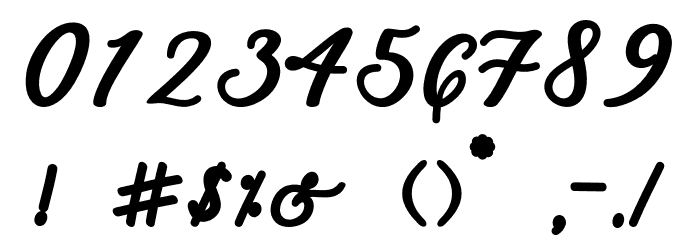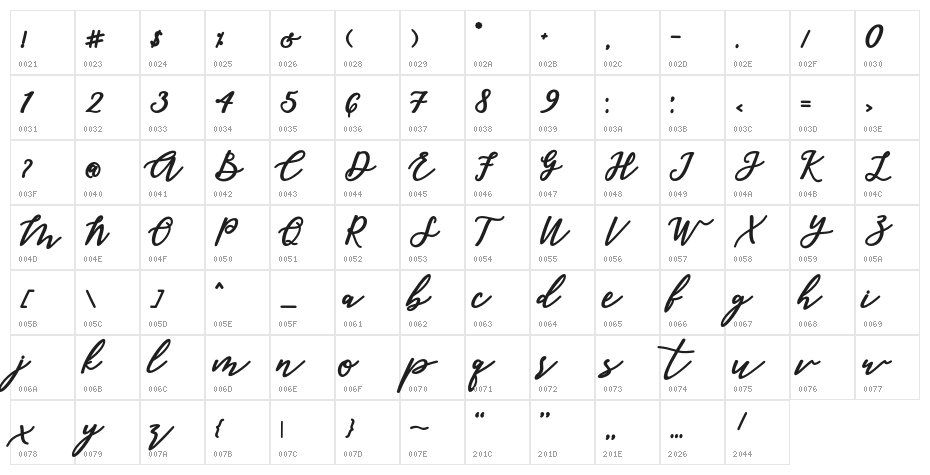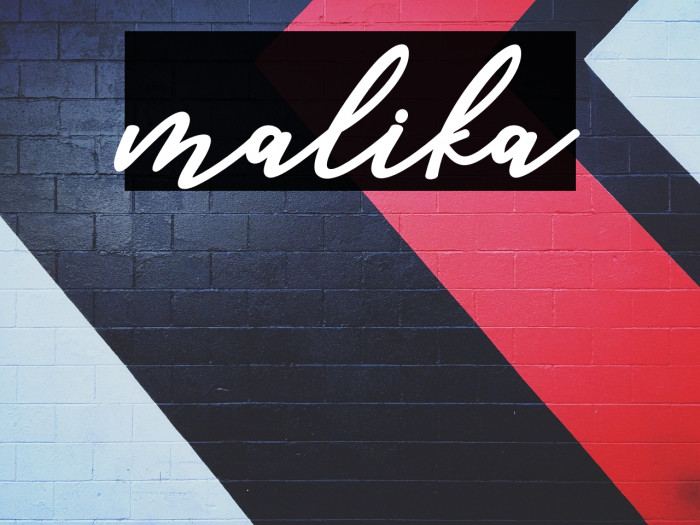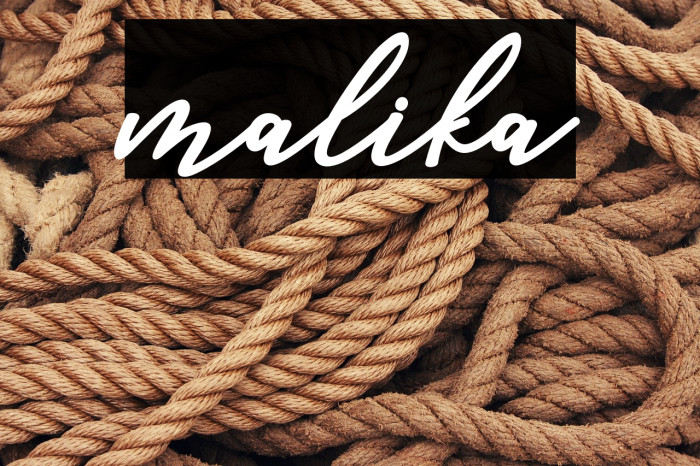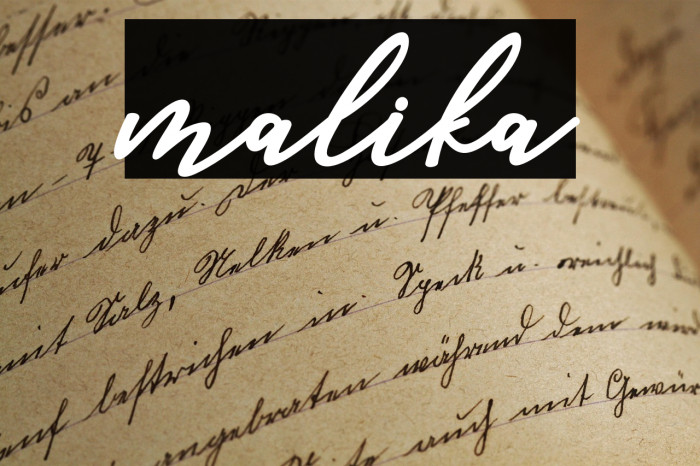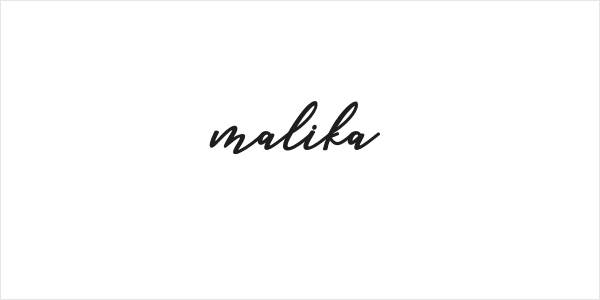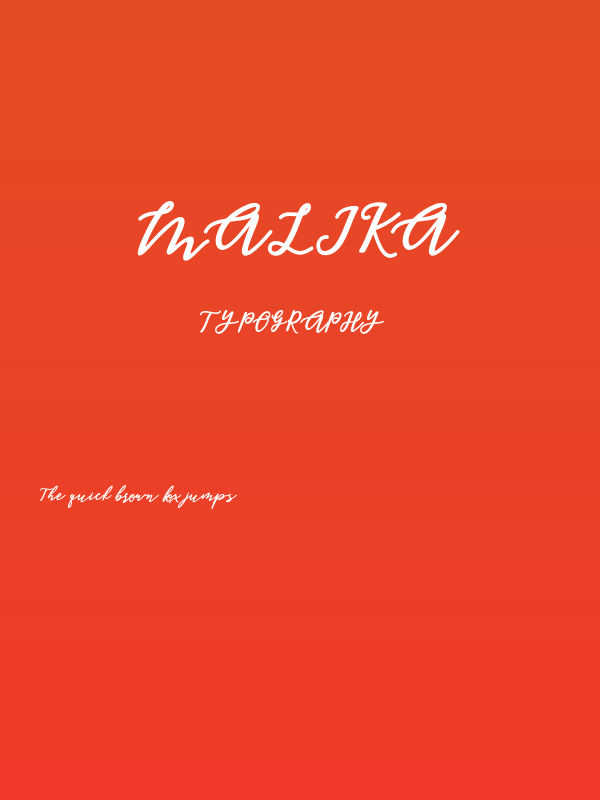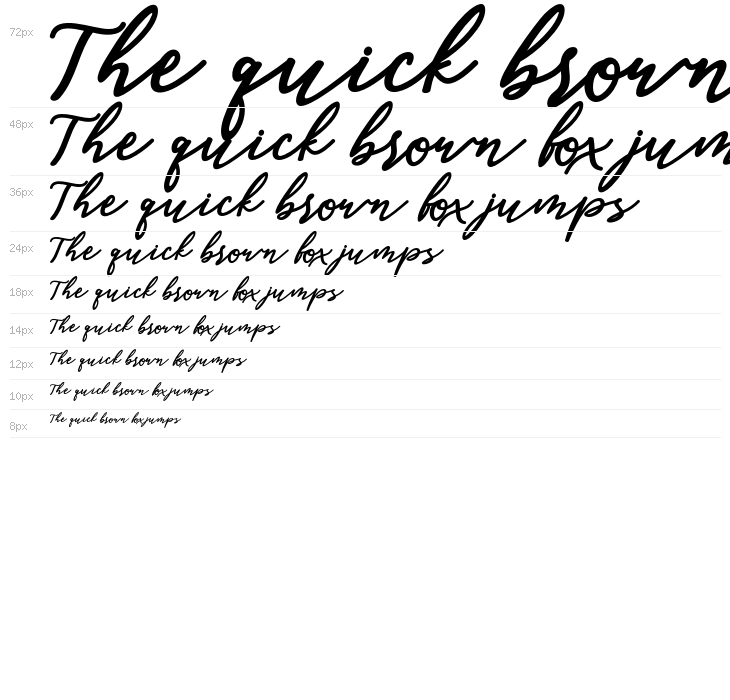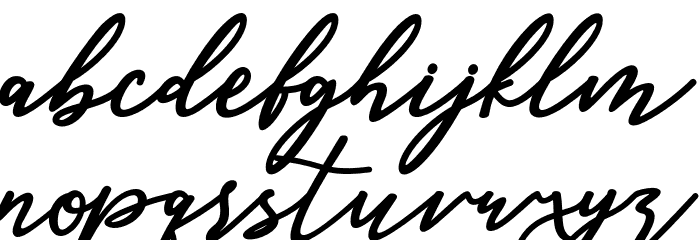
malika Font
malika Description
This font features a flowing, cursive style with elegant, sweeping strokes that give it a handwritten appearance. The uppercase letters are slightly more formal, with a consistent slant and smooth curves, while the lowercase letters maintain a casual, yet sophisticated look. The numerals are bold and clear, matching the overall aesthetic of the font. Special characters are integrated seamlessly, maintaining the fluidity and grace of the script. This font exudes a sense of personal touch and creativity, making it ideal for projects that require a human element.
| Proposed Projects | Ideal for wedding invitations, personal branding, greeting cards, and artistic projects. |